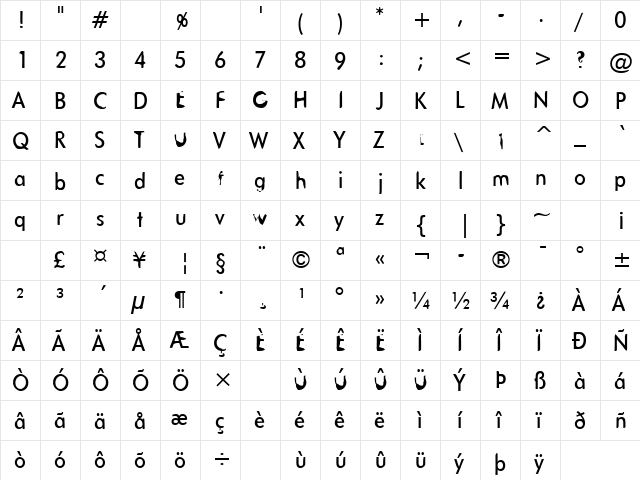
Tanklason Regular
Design Context for Tanklason Typeface
Tanklason offers clean, dependable letterforms without strong stylistic allegiance, making it a practical choice for designers who need flexibility.